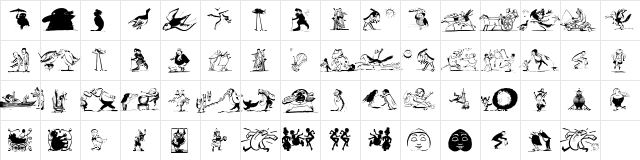
EarlySurrealism1 Regular Font Preview
EarlySurrealism1 Regular
EarlySurrealism1 Regular Font Details
Design Context for EarlySurrealism1 Typeface
EarlySurrealism1 is a composed and adaptable typeface that performs quietly and consistently across a wide range of design contexts.